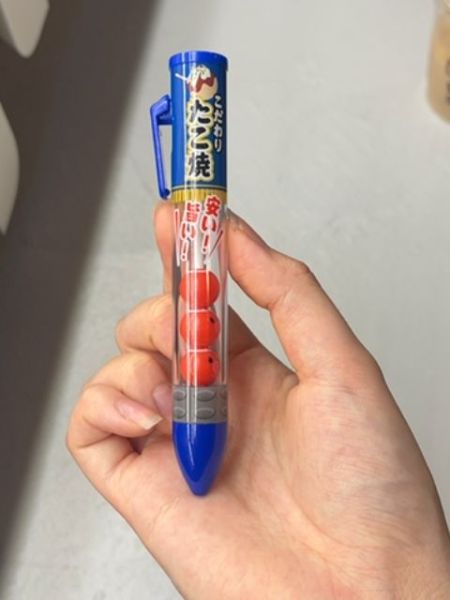
Takoyaki Ballpoint Pen
A novelty ballpoint pen designed to resemble a takoyaki skewer, a popular Japanese street food made of octopus-filled batter balls.
The typography uses bold, friendly characters reminiscent of handwritten kanji, conveying an authentic and playful Japanese aesthetic. The font is designed to be easily readable, with varied stroke weights adding a touch of casual elegance to the overall design.
The pen features a clear plastic casing that showcases small, round objects resembling takoyaki balls stacked inside. The top of the pen is capped with a vibrant blue, and it includes a clip for easy attachment to notebooks or pockets.
- Inspired by the popular Japanese street snack, takoyaki.
- Includes detailed, miniature replica takoyaki balls inside.
- Functions as a regular ballpoint pen with a twist mechanism.